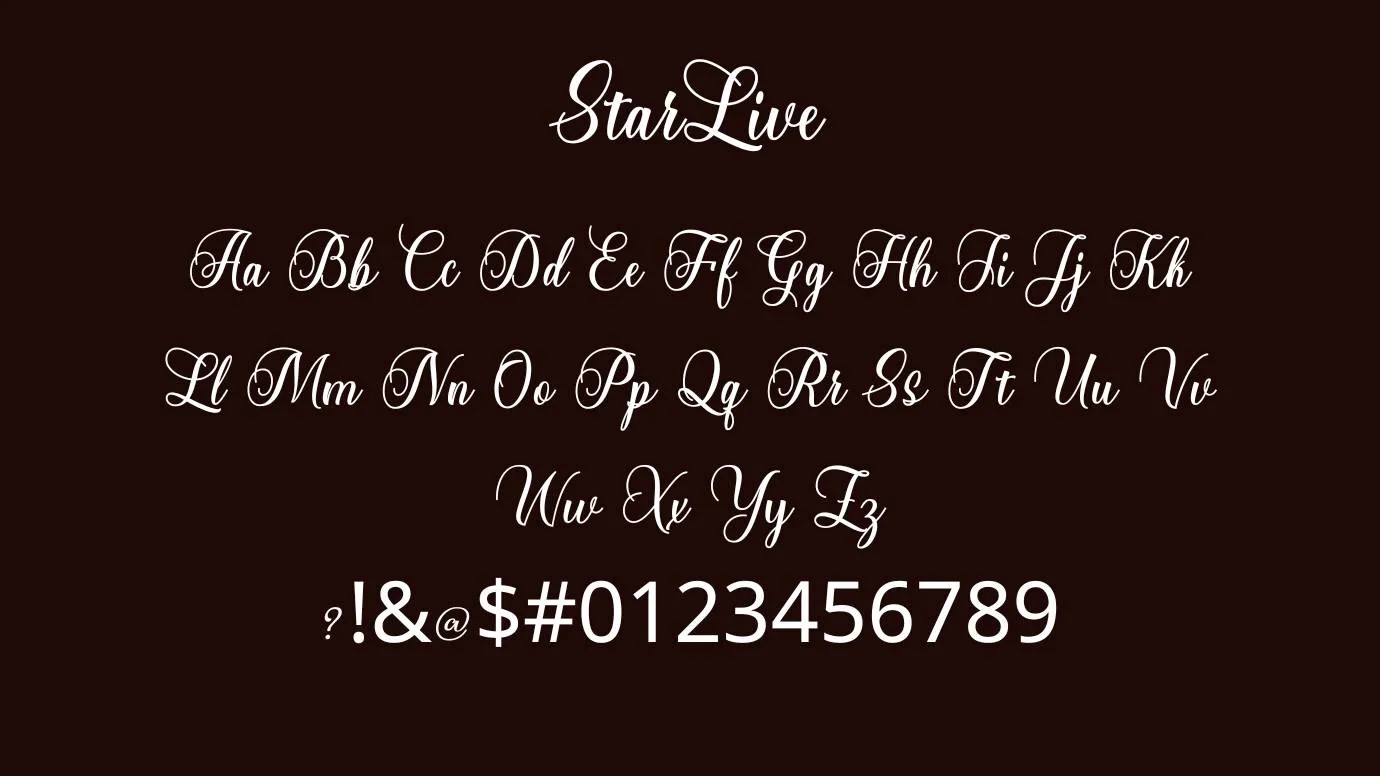
Starlive font is a very attractive and classy script-type font. It was designed by Kurniadi Saputra and manufactured by Cooldesignlab Font. The look of this font is good for all types of personal and commercial projects.
StarLive Font